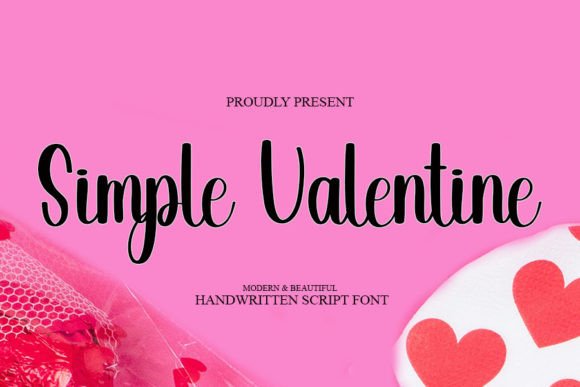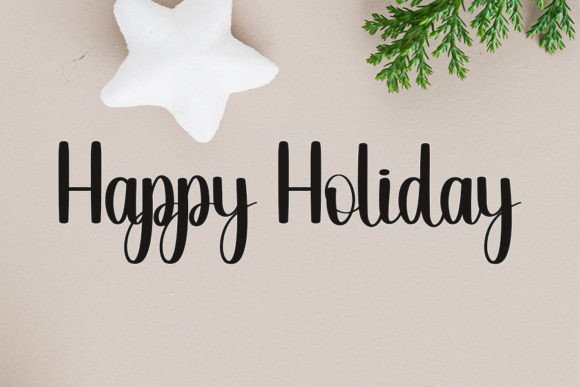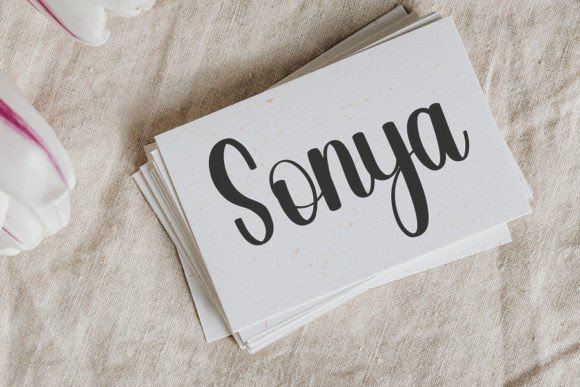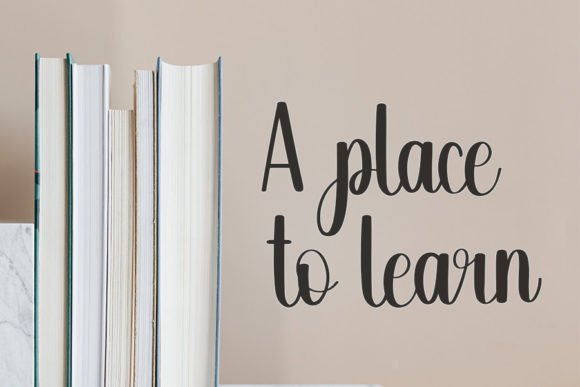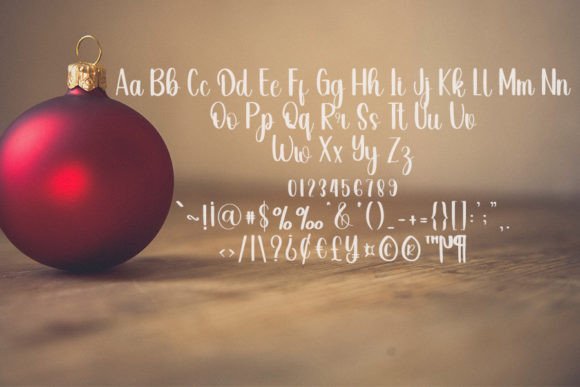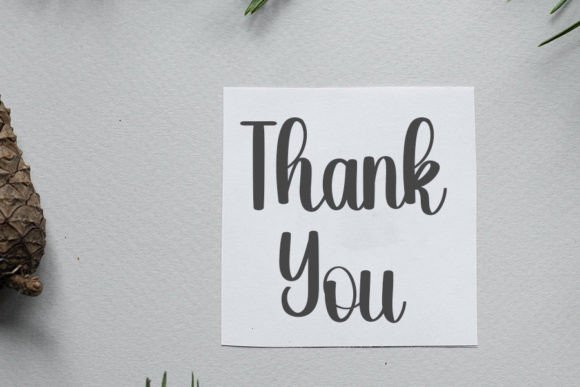
Simple Valentine Font
What Is Simple Valentine Font?
Simple Valentine is a neat and beautiful handwritten font created to bring elegance and a timeless feel to your favorite projects. With its graceful strokes and clear letterforms, this font easily makes any design look refined and professional. Because it was crafted carefully, Simple Valentine combines charm with modern simplicity.
You’ll love how it transforms ordinary ideas into polished, memorable designs.
Simple Valentine is incredibly versatile and fits perfectly in a wide variety of applications. For example, it looks stunning on wedding invitations. Whether you’re designing formal stationery or relaxed event cards, this font adds a soft, romantic feel.
It also shines in logos and branding. If you want your business to appear sophisticated and approachable, Simple Valentine helps you create a visual identity that feels both elegant and genuine.
Additionally, this font is a wonderful choice for social media graphics. Whether you are sharing inspirational quotes, promoting products, or announcing special events, its classy style makes your posts stand out effortlessly.
You can also use Simple Valentine for packaging, labels, or event signage. Its balanced look brings a premium touch to any product. From greeting cards and posters to digital templates, this font adapts smoothly to any project you have in mind.
Why Should You Choose Simple Valentine Font?
There are many reasons to add Simple Valentine to your font library. First, it remains clear and easy to read at every size. Whether you use it for large headlines or small text, each letter keeps its elegance and clarity.
It pairs beautifully with clean serif or sans-serif fonts, making it simple to build cohesive, professional designs.
Designers love how sophisticated and polished it looks right away, saving time while delivering stunning results.
Simple Valentine Font brings elegance, warmth, and character to every project. For example, if you want your designs to feel refined and welcoming, this font makes it effortless.
Even minimal layouts look more engaging with its graceful curves and neat lines. Whether you are designing invitations, labels, or social media posts, your work will feel polished and cohesive.
Using a premium handwritten font also shows your attention to detail and helps you create a positive, memorable impression.
Simple Valentine is more than just a font—it’s a creative tool that adds timeless elegance to everything you create. From wedding invitations and logos to packaging and digital graphics, this font adapts effortlessly and elevates your projects.